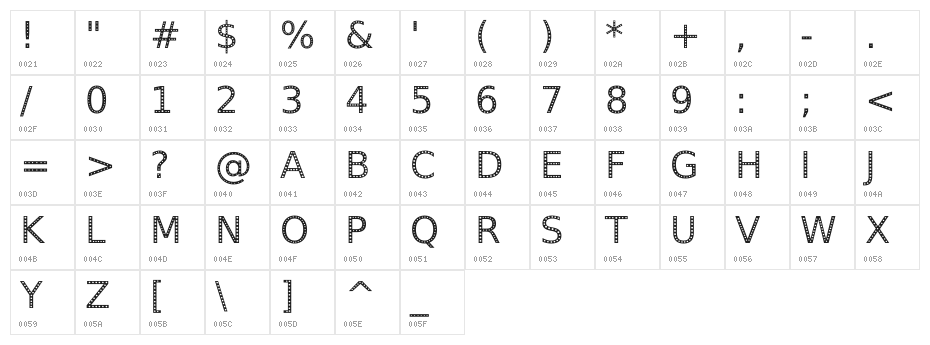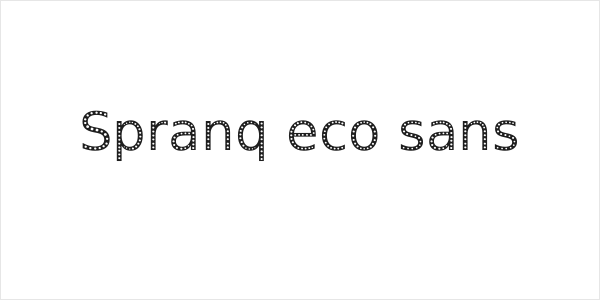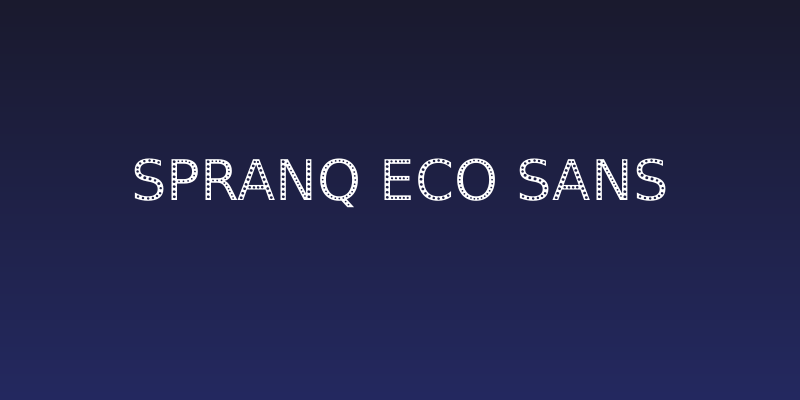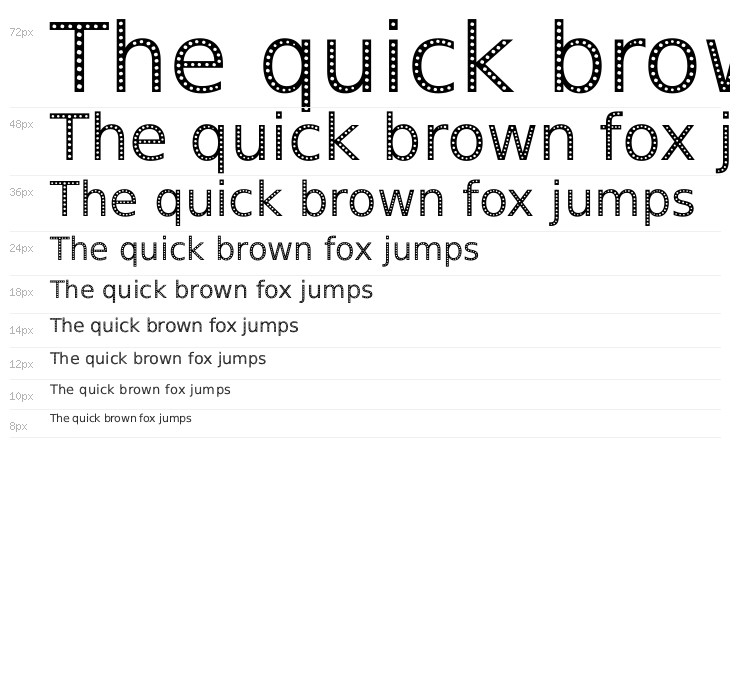
Spranq eco sans Font
Spranq eco sans Description
This font features a unique design with a dotted pattern within each character, creating a visually striking and eco-friendly appearance. The letters are sans-serif, offering a clean and modern look while the dotted style reduces ink usage, making it ideal for sustainable printing. The uppercase and lowercase letters maintain consistent proportions, ensuring readability. Numbers and special characters follow the same dotted pattern, providing a cohesive aesthetic across all elements. This innovative approach combines functionality with a distinctive style, appealing to environmentally conscious designers.